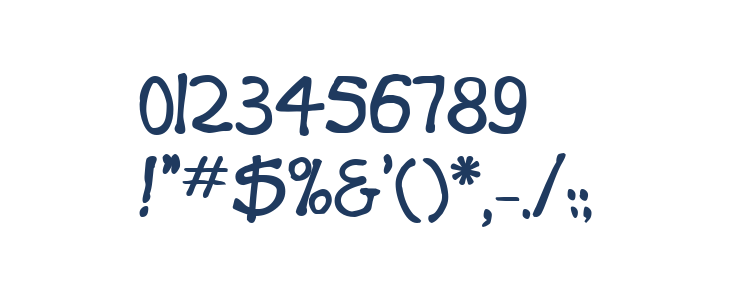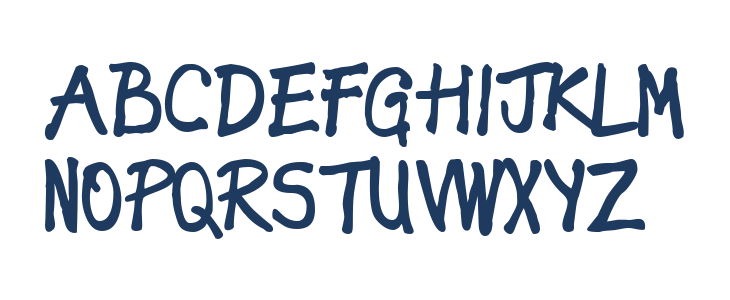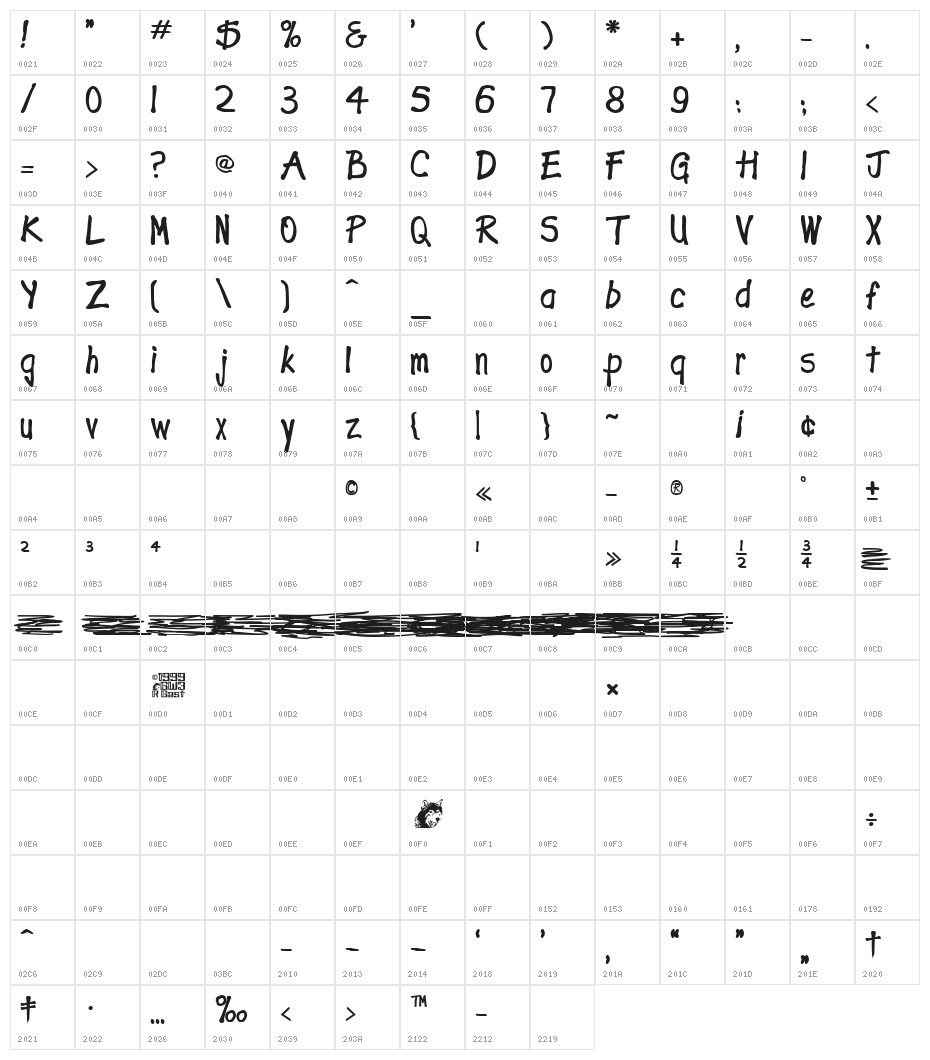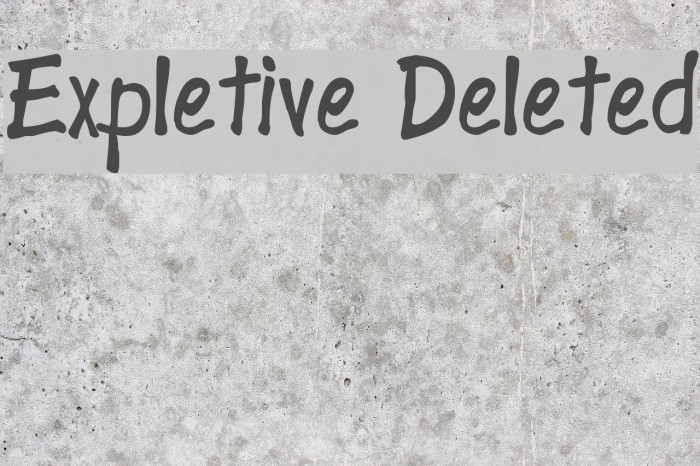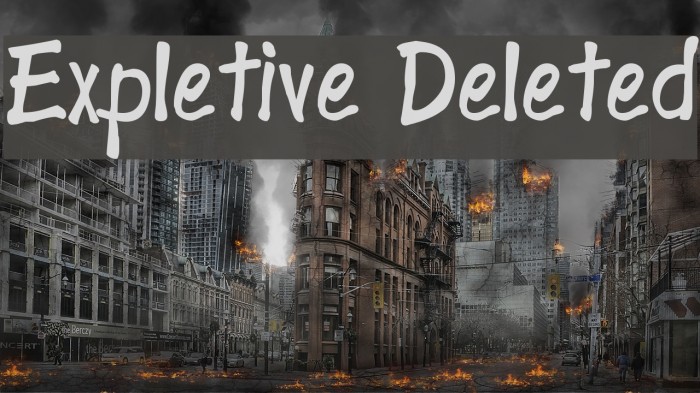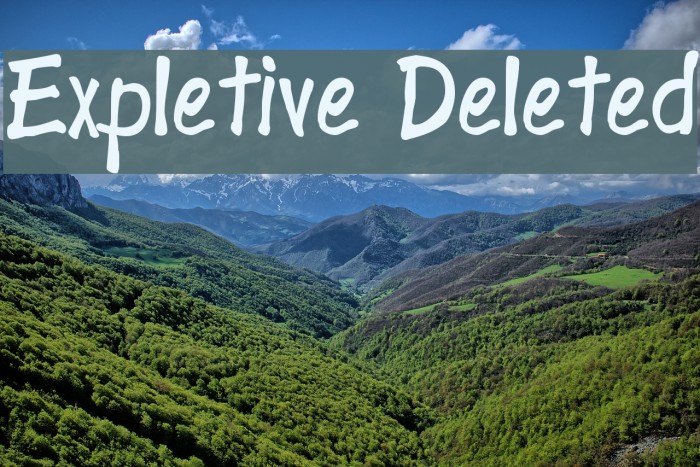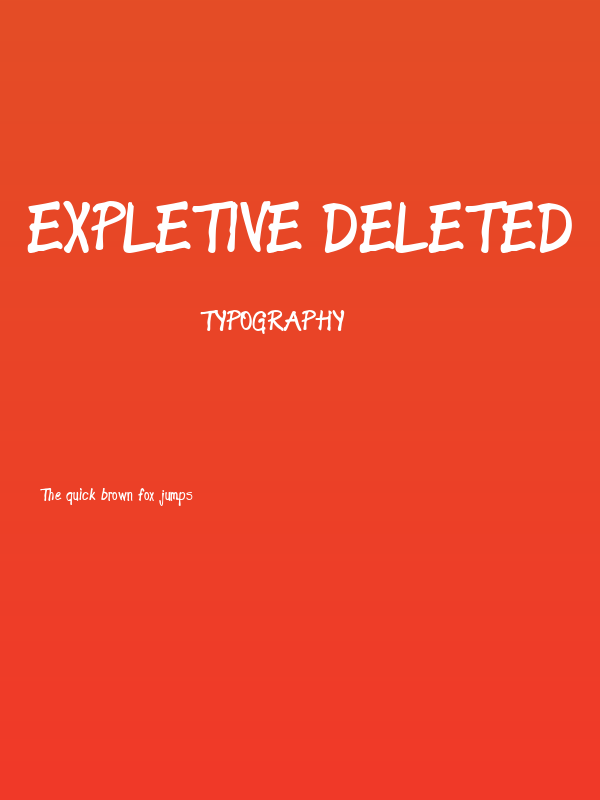
Expletive Deleted Font
Expletive Deleted Description
This font exhibits a playful and energetic handwritten style, characterized by its bold and slightly irregular strokes. The letters have a casual, informal appearance, with a slight slant that adds to their dynamic feel. The uppercase and lowercase letters maintain a consistent style, with rounded edges and a uniform thickness that gives the font a cohesive look. The numbers and special characters are designed to match the overall aesthetic, ensuring a harmonious appearance across all elements. This font's unique personality makes it suitable for projects that require a touch of whimsy and creativity.
| Proposed Projects | Ideal for children's book covers, playful branding, creative posters, and informal invitations. |